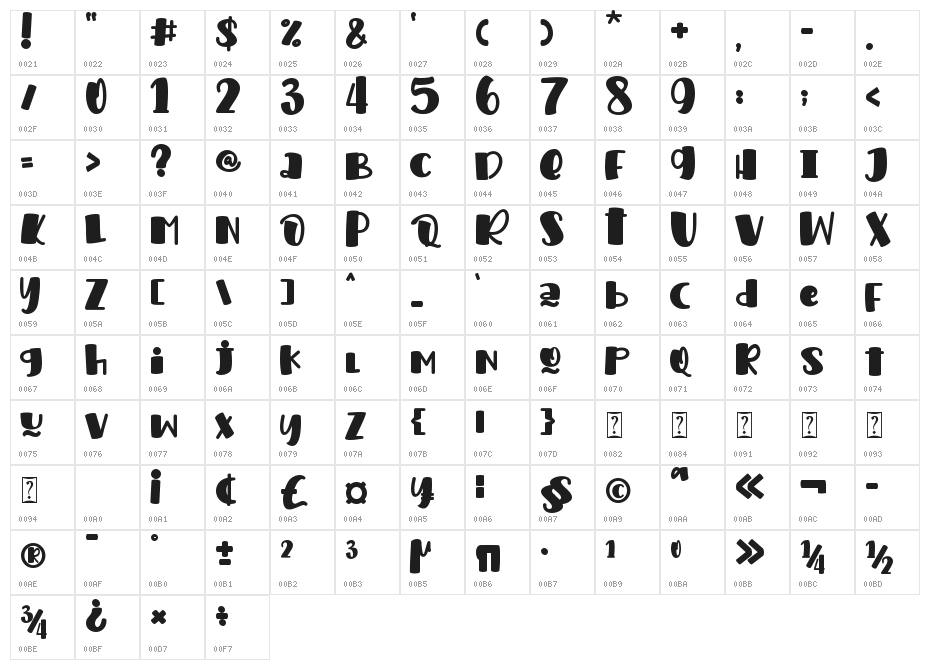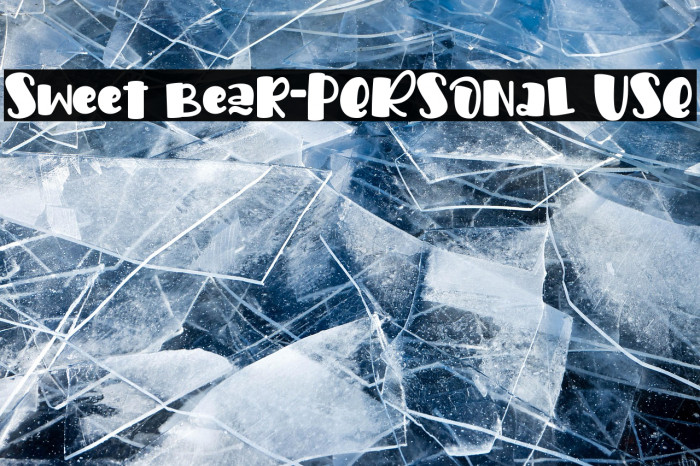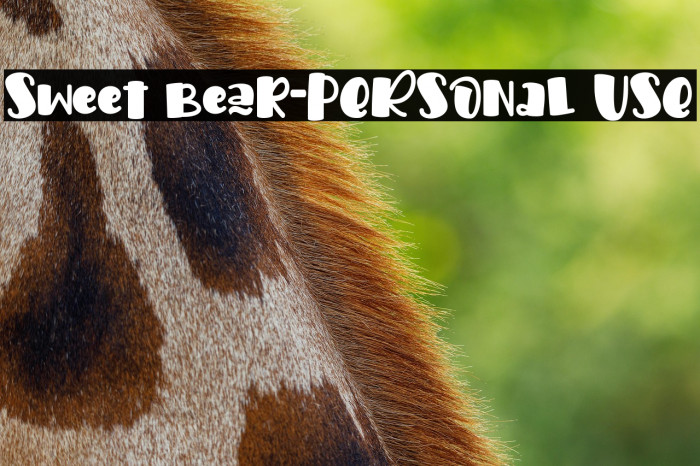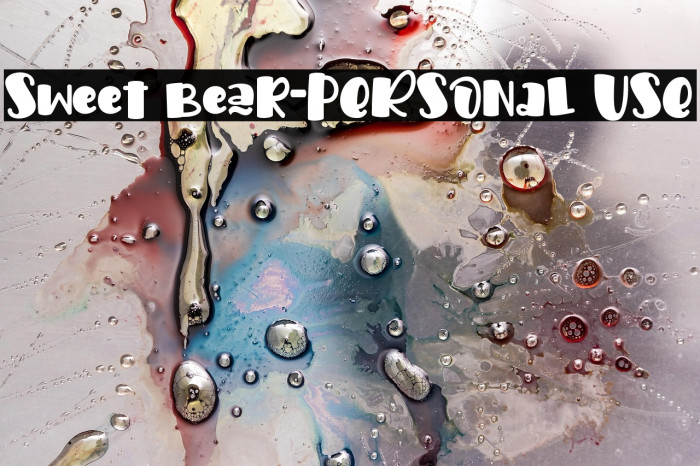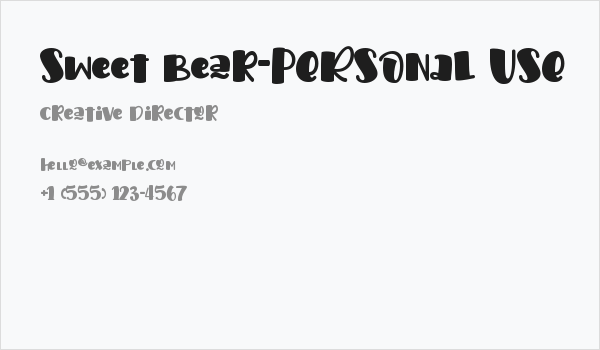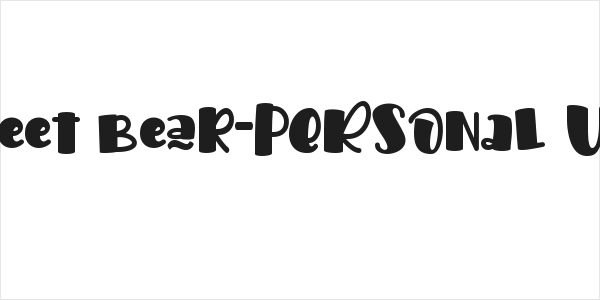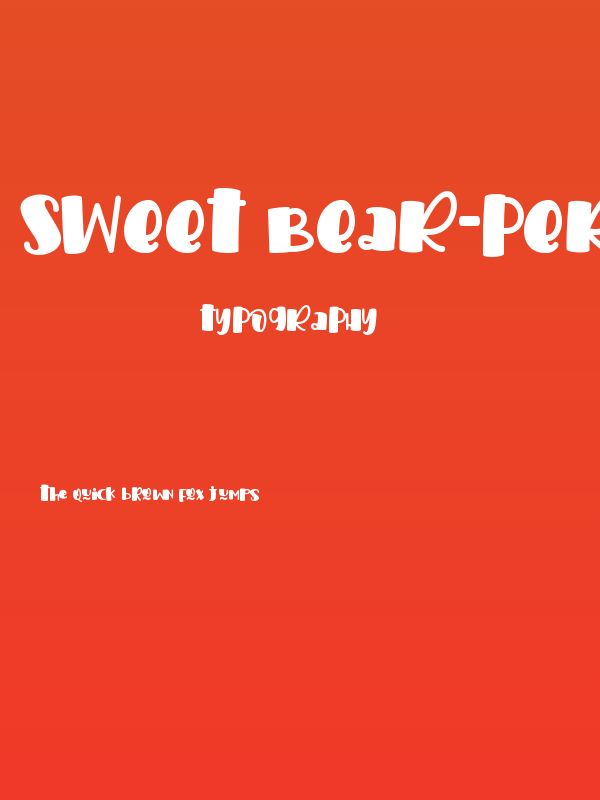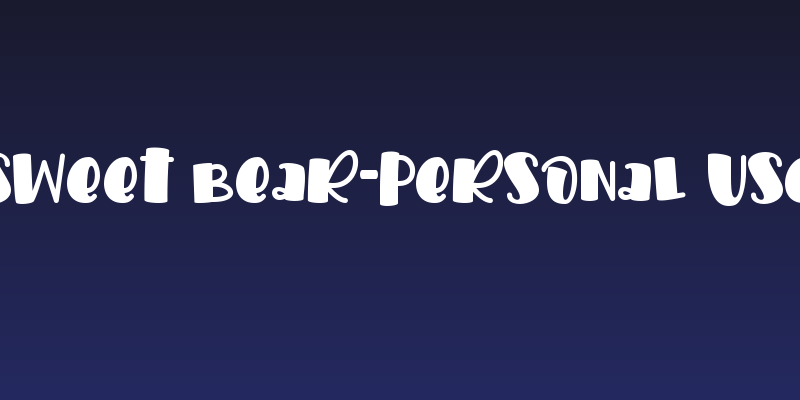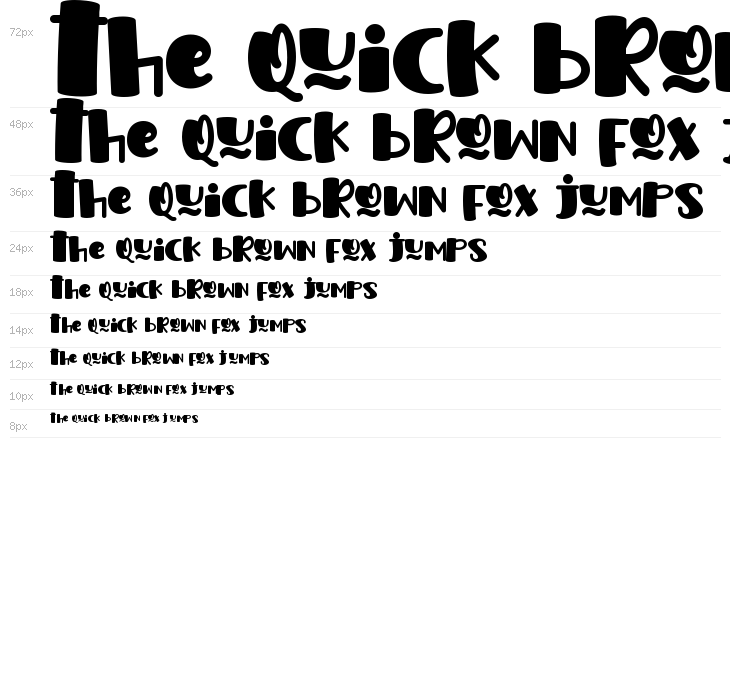
Sweet Bear-PERSONAL USE Font
Sweet Bear-PERSONAL USE Description
This playful and bold font features a whimsical design with thick, rounded strokes and a lively, energetic feel. The characters are crafted with a sense of fun, incorporating unique curves and exaggerated forms that give it a distinctive personality. The uppercase and lowercase letters maintain a consistent style, while the numerals and special characters complement the overall look with their bold and expressive shapes. This font is perfect for projects that require a touch of creativity and joy, making it ideal for children's books, playful branding, or eye-catching headlines.
Overall StylePlayful, Whimsical
Use CaseHeadlines, Logos, Creative projects
Proposed ProjectsIdeal for children's books, playful branding, eye-catching headlines, and creative designs.